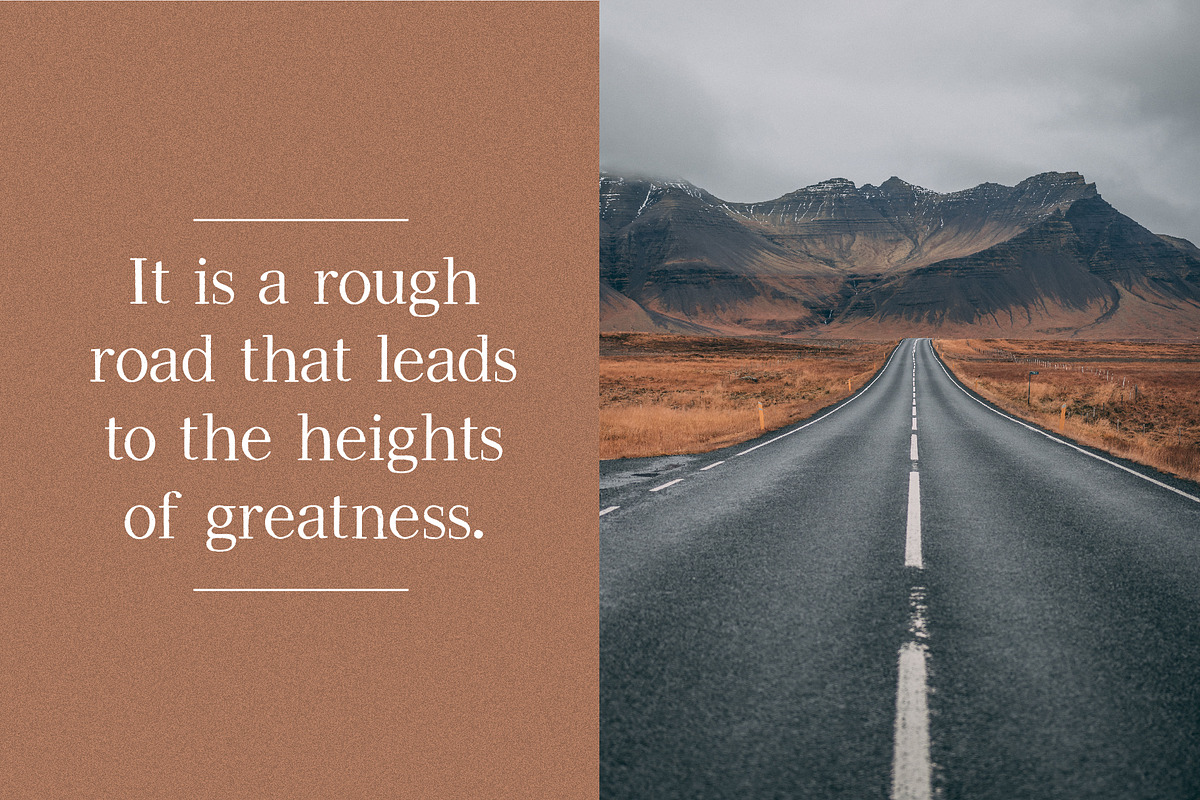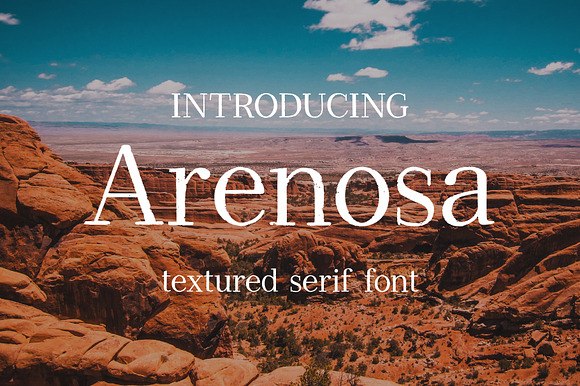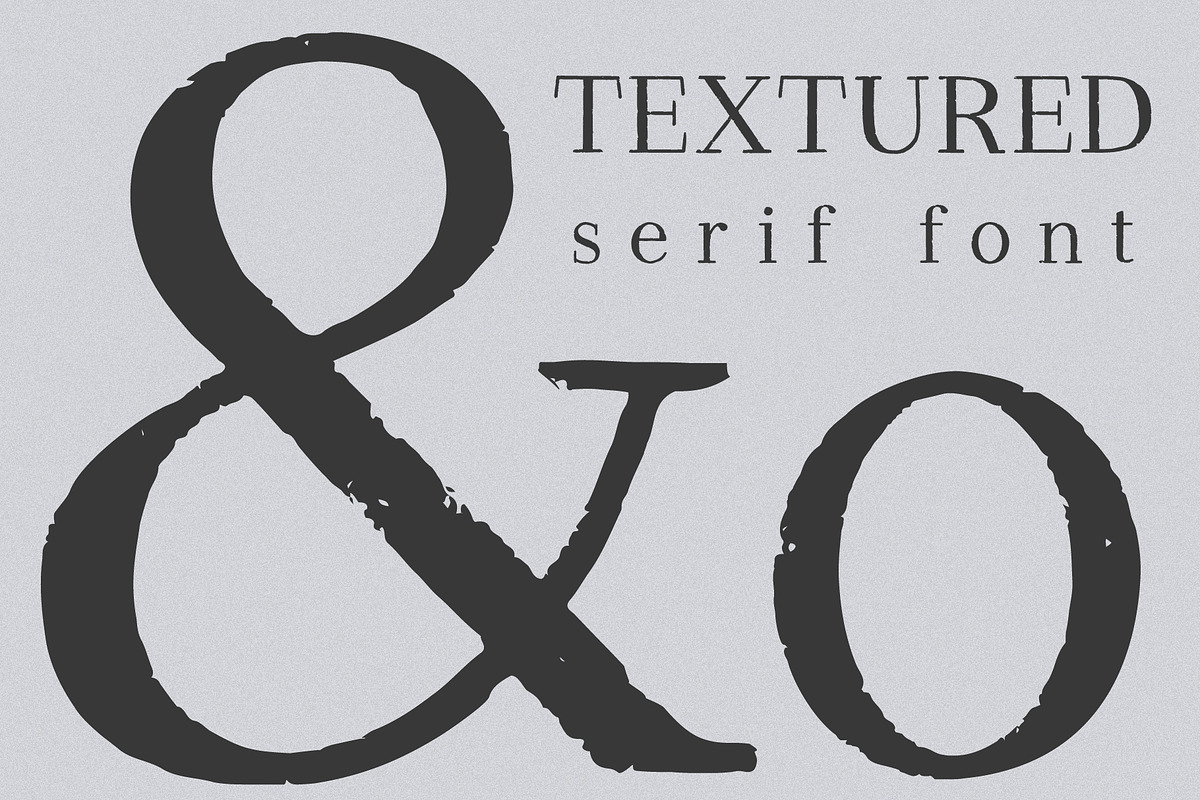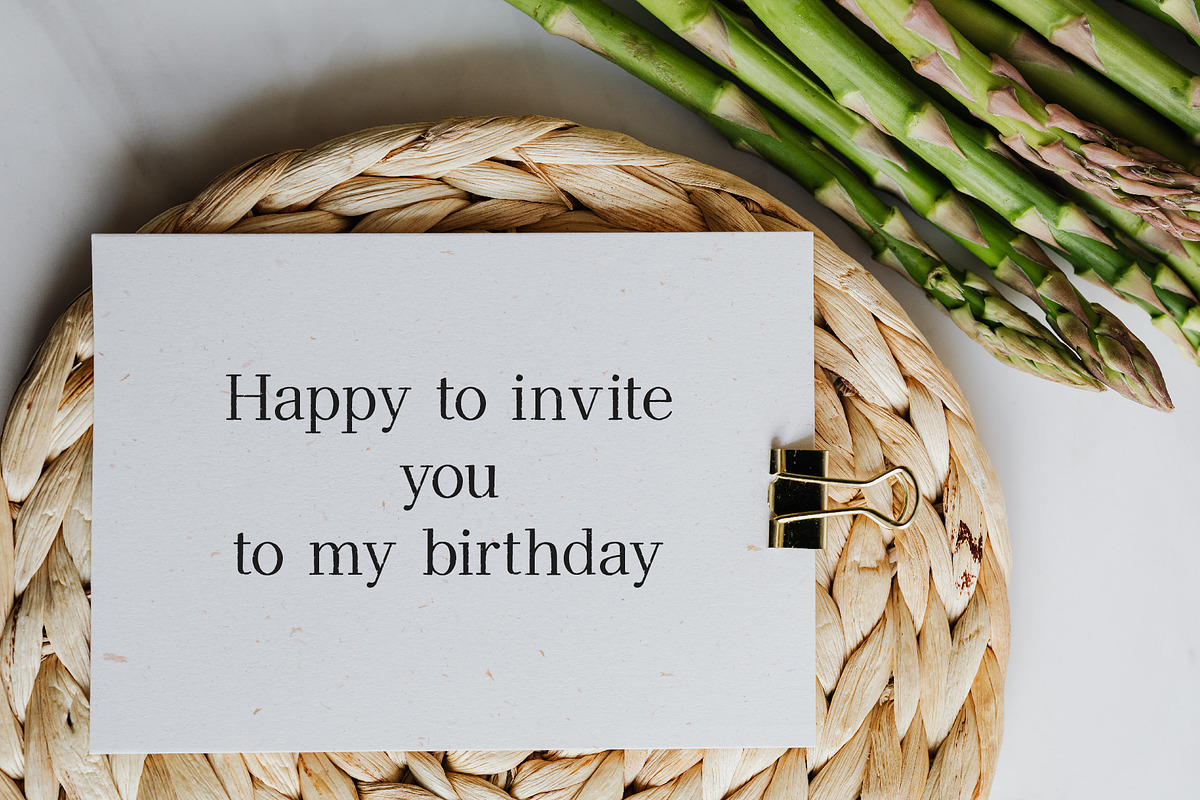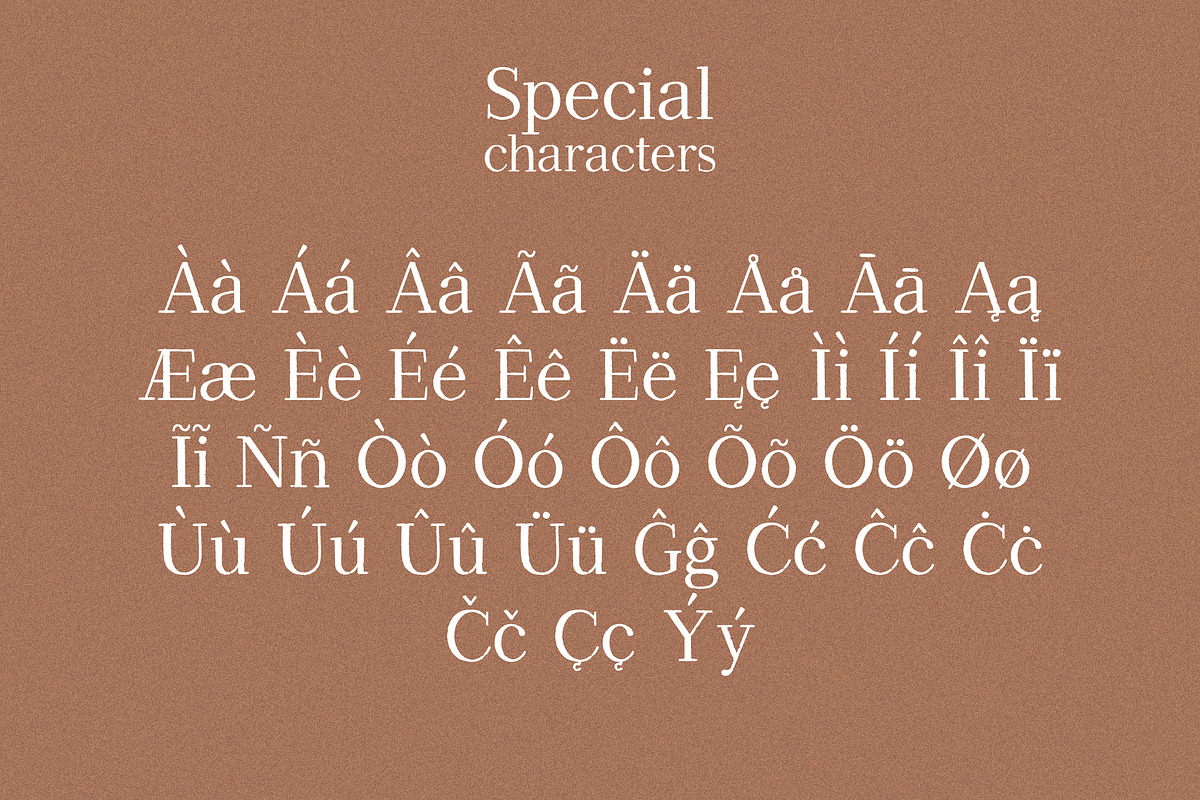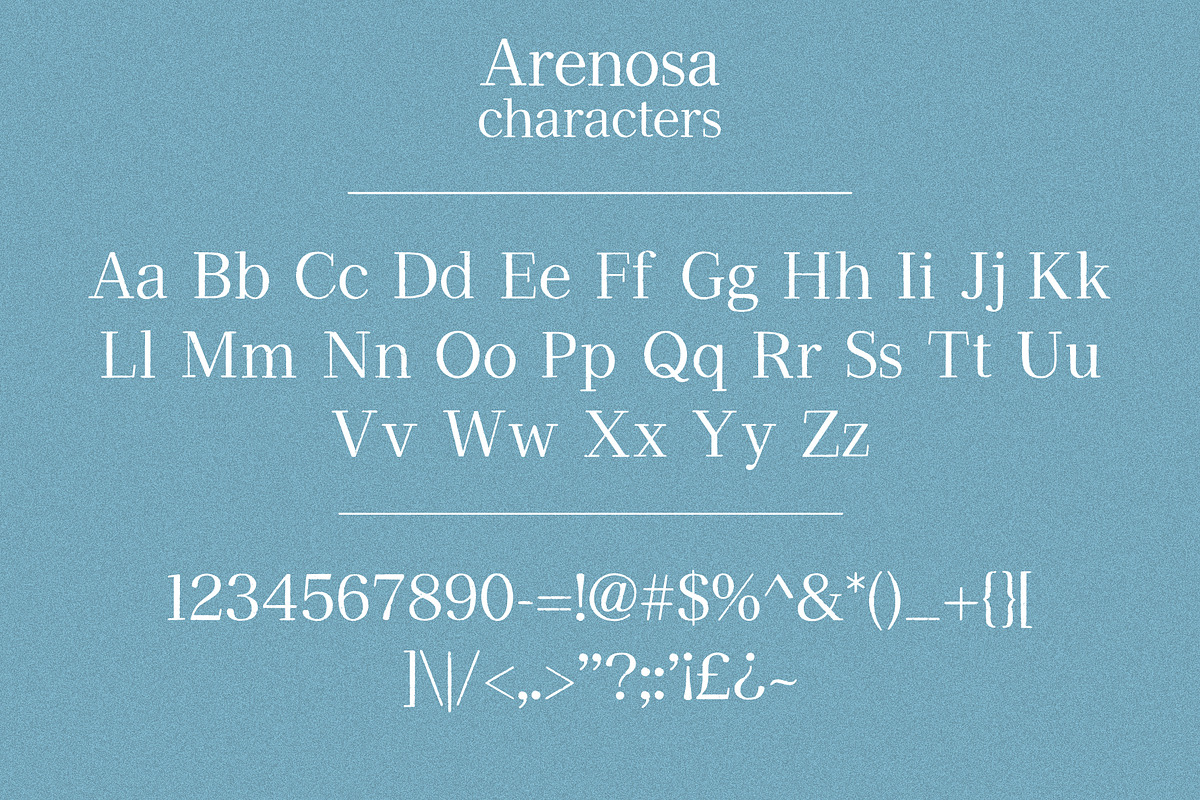
Arenosa | textured serif font
Hi guys! I am pleased to introduce my new font - Arenosa! It's a simple handwritten font with texture. This font is well suited for titles, quotes, phrases. Also it would look great in logos, labels, heading, posters and on t-shirts.
Arenosa font contains uppercase, lowercase characters, numbers and punctuation, and also contains multilingual characters. Don’t forget to test your characters in the font previewer below before purchase.
Arenosa | textured serif font by Wander Designs fits naturally into Branding, posters, packaging, typography.